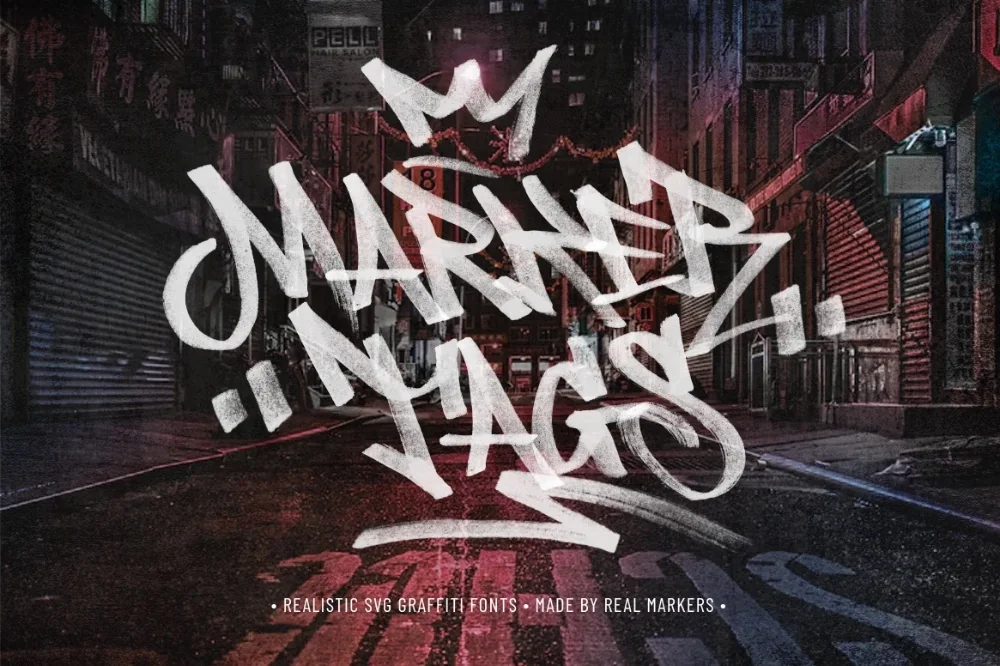
Handheld Marker Tag Font
Every collection needs a marker font that can carry a whole layout on its own. This is that font. The look of a chisel-tip marker moving quickly across a flat surface. Compact enough for small labels and busy layouts.
The chisel angle creates thick verticals and thin horizontals throughout the alphabet, a natural contrast that gives even short words visual rhythm. Ends are cut flat rather than rounded.
Good for shipping labels, price tags, name cards, and annotation over product photos.
Pair it with something quiet. A plain sans for body copy lets the lettering do its job instead of fighting the paragraph underneath it for attention.